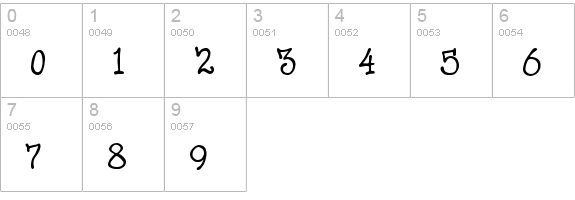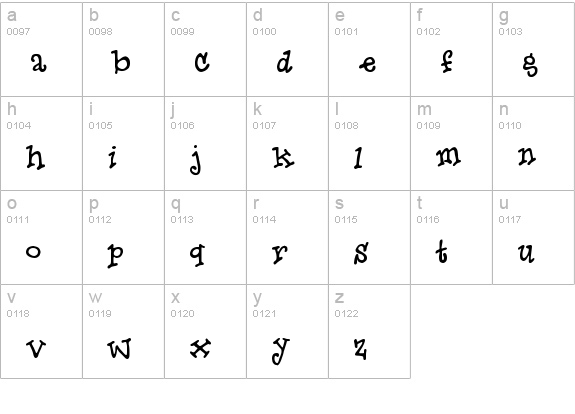
Hero Of Fools Font Details
Hero Of Fools font is a whimsical and playful typeface that brings a sense of fun and excitement to any design project. With its bold and quirky characters, this font is perfect for creating eye-catching headlines, posters, and more. The unique design of Hero Of Fools font sets it apart from other fonts, making it a standout choice for those looking to add a touch of personality to their work. And the best part? Hero Of Fools font is completely free to download at FontsMarket.com! Whether you're working on a personal project or a professional design, this font is a fantastic choice for adding a bit of charm and whimsy to your creations. Download Hero Of Fools font today and let your creativity shine!